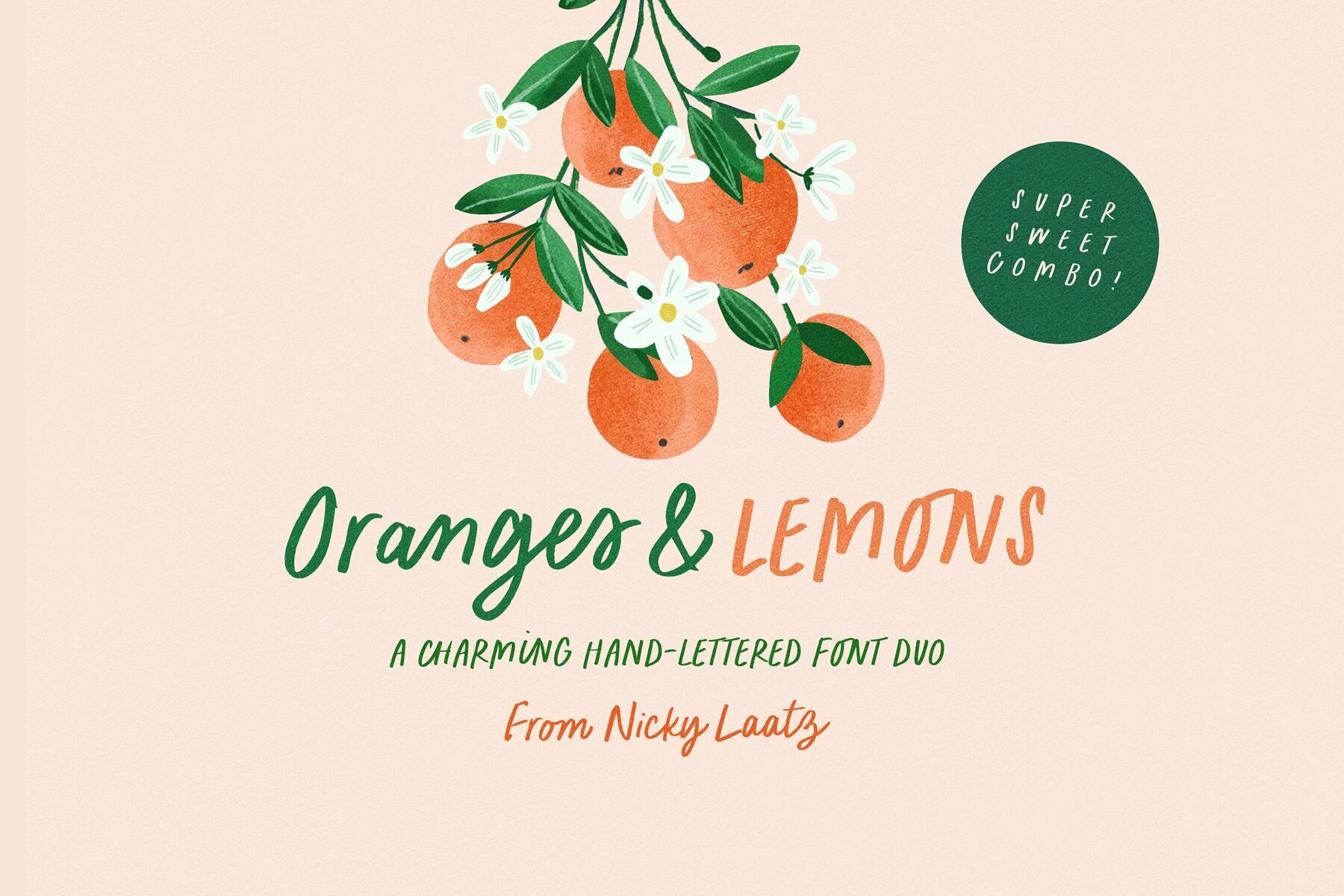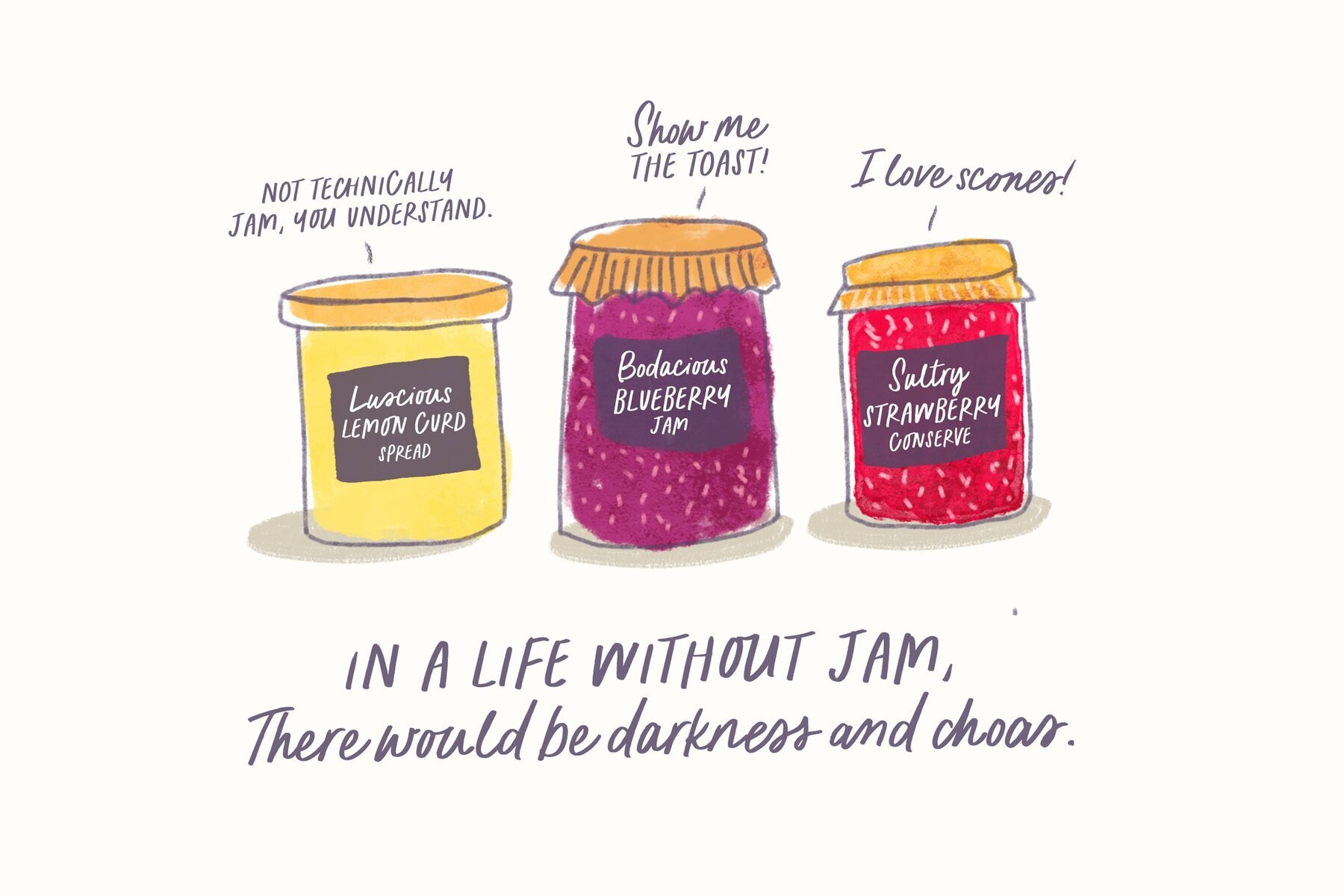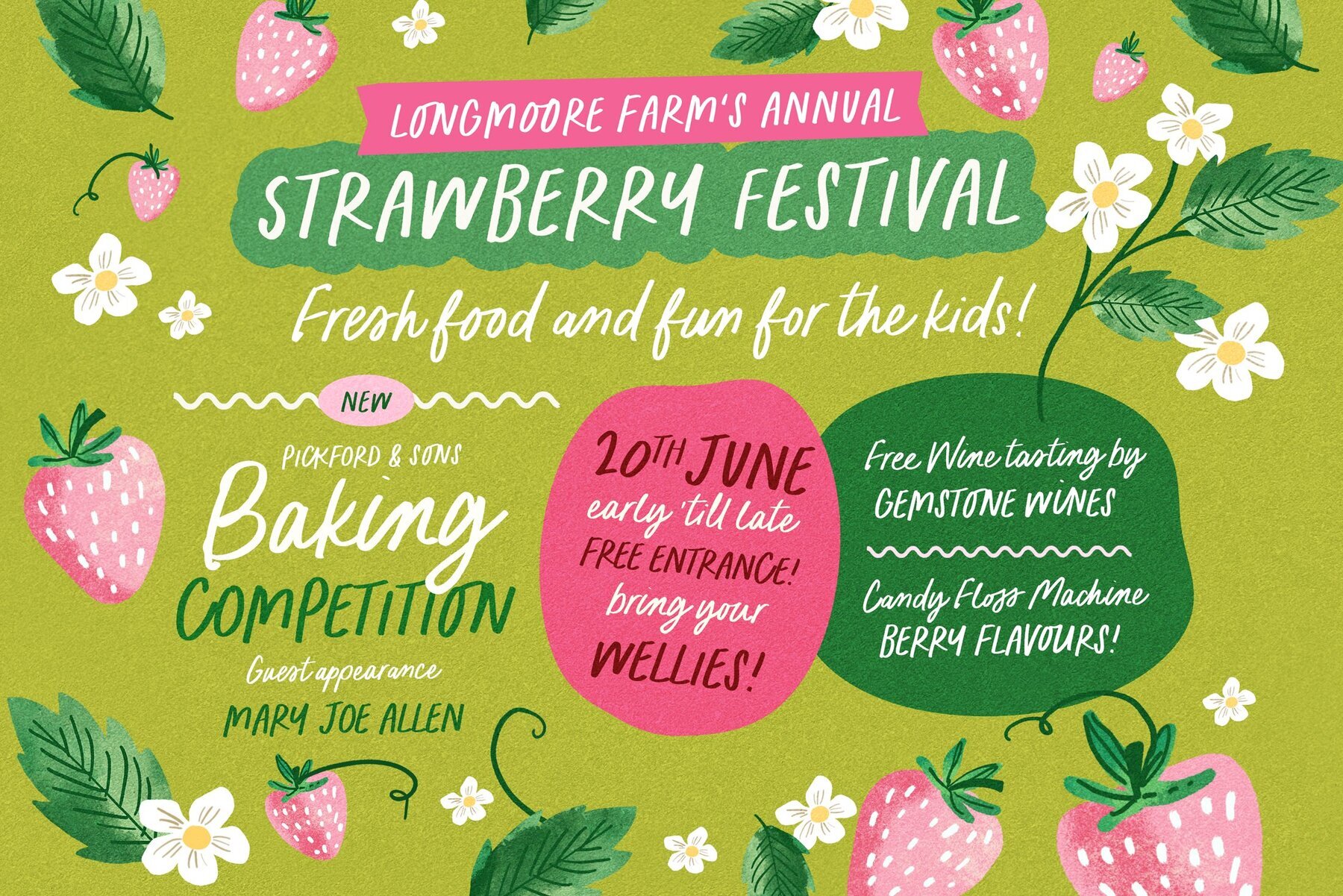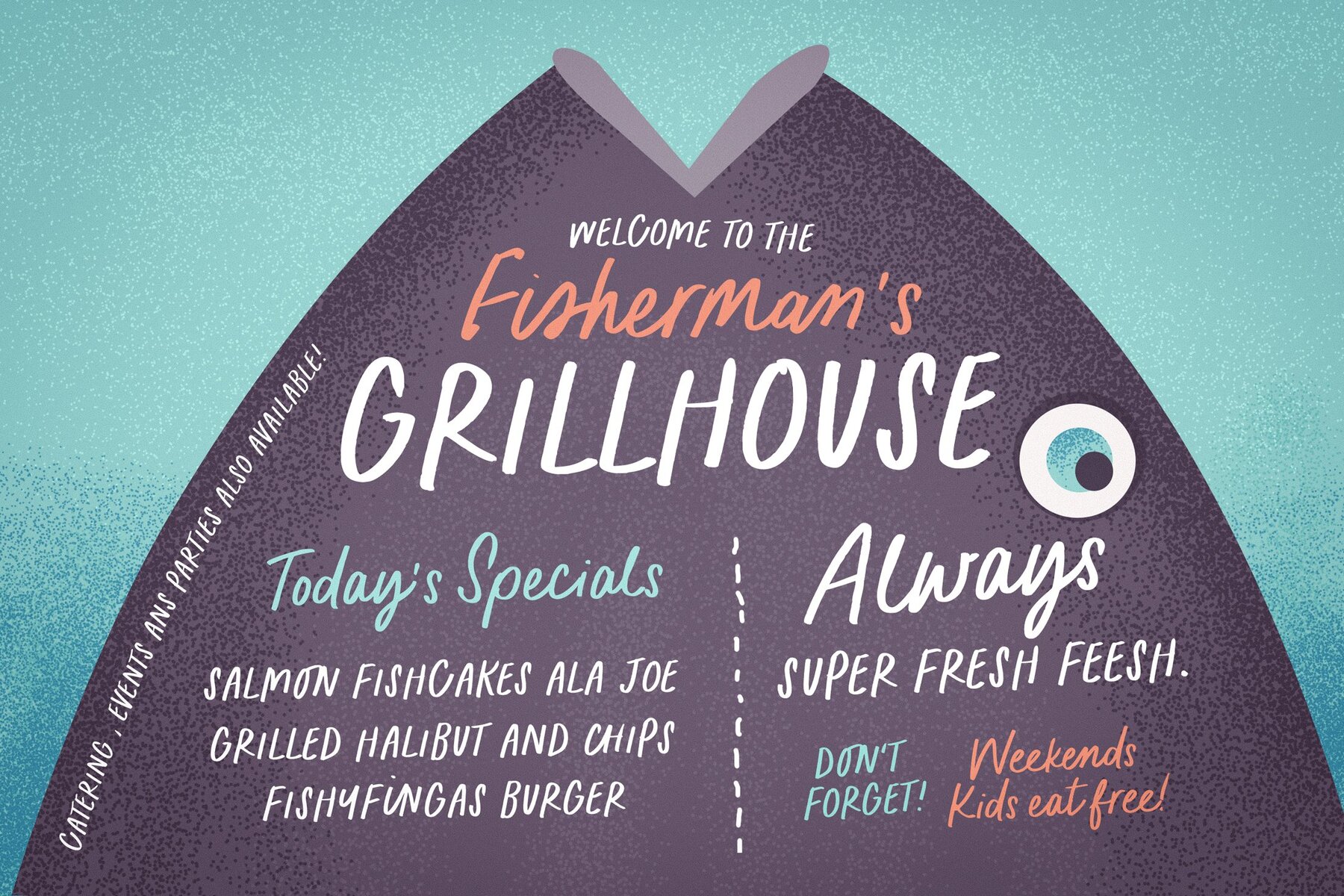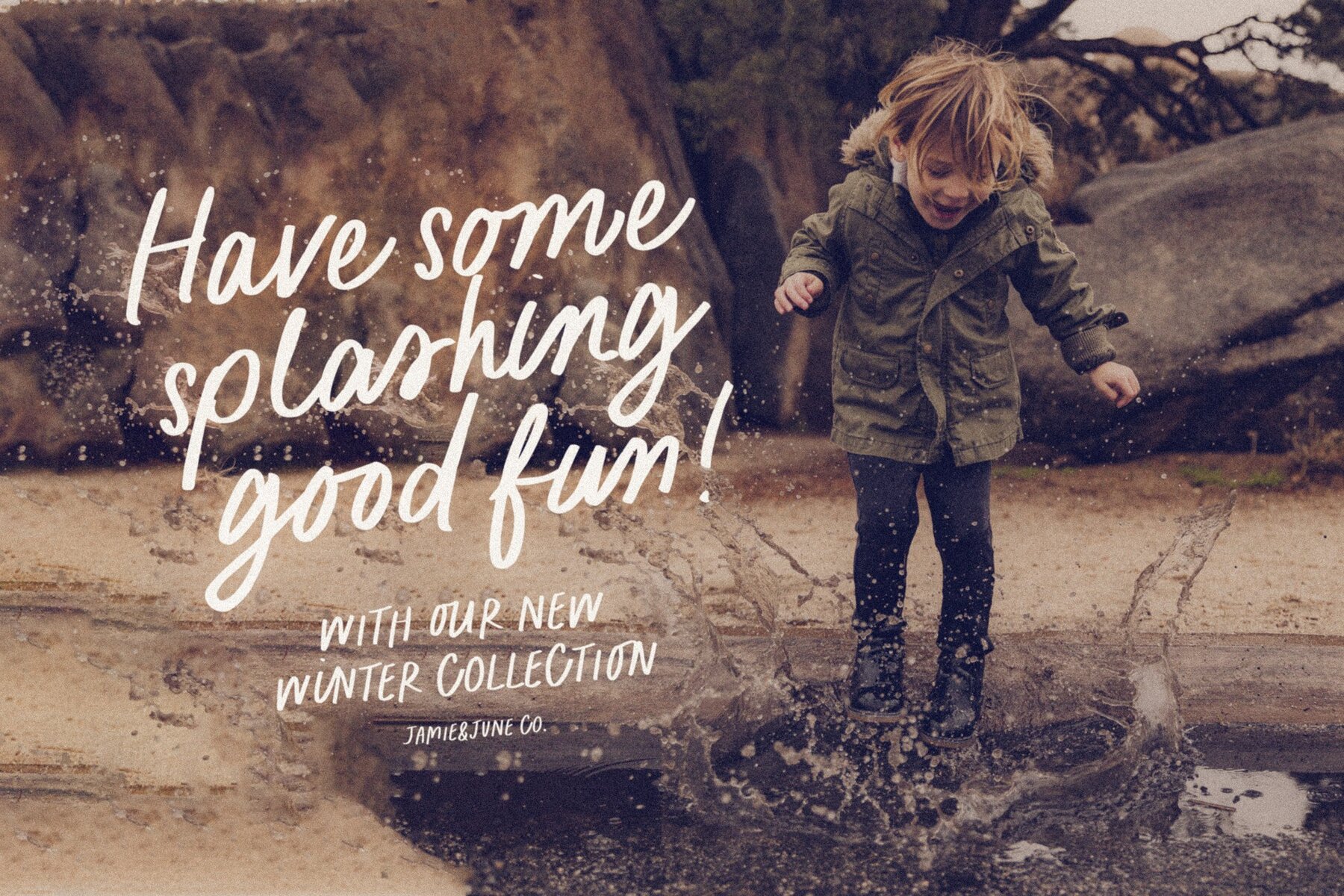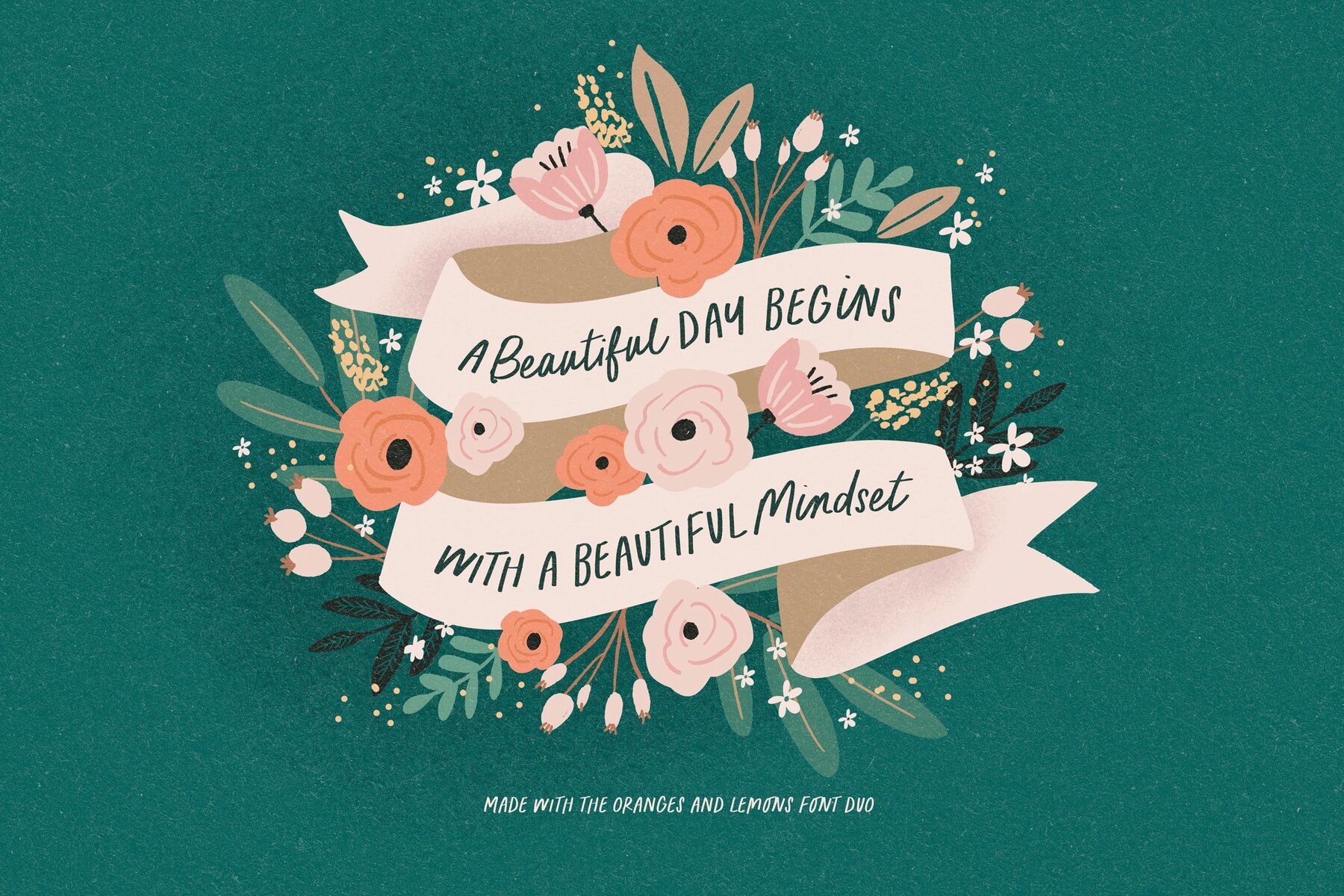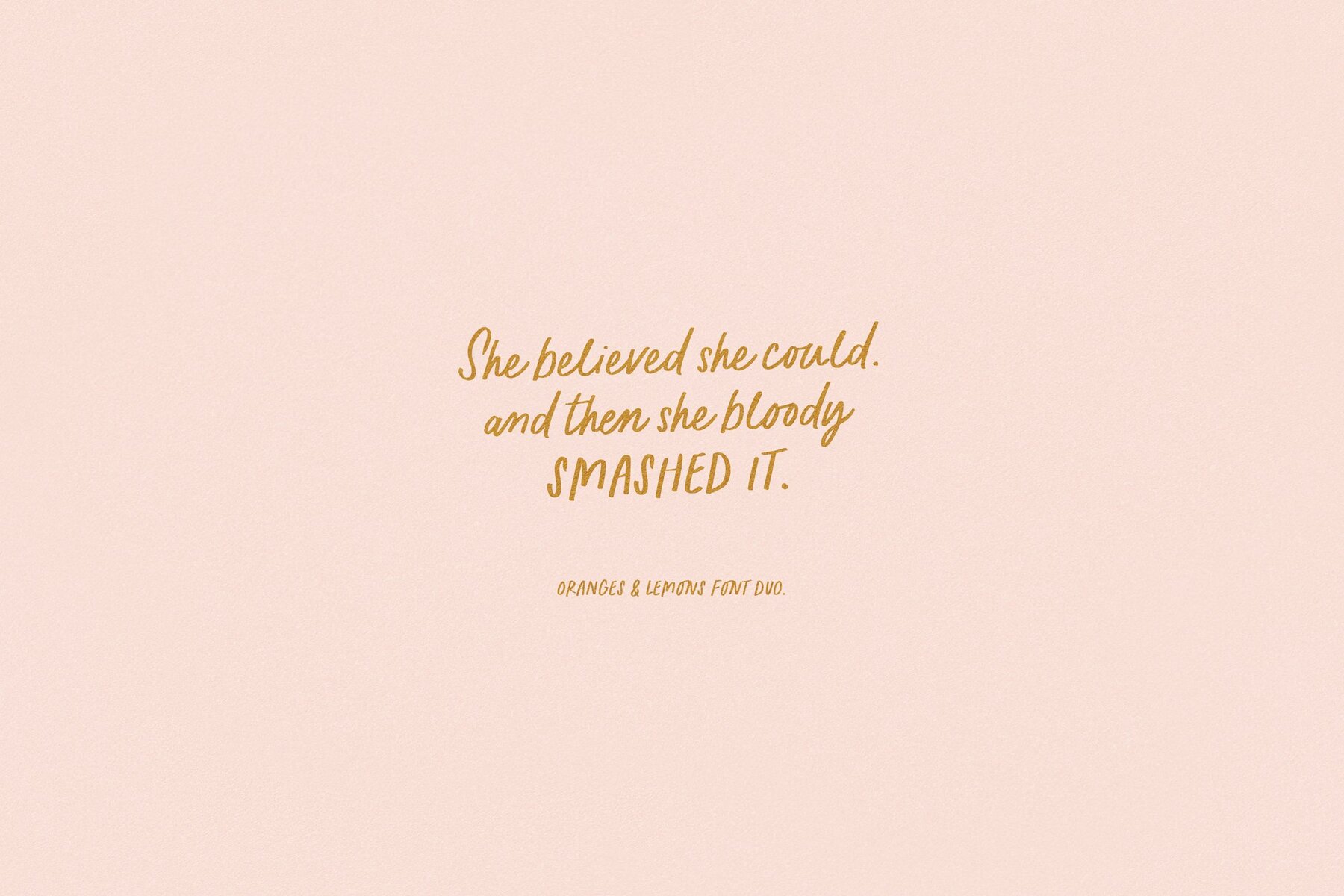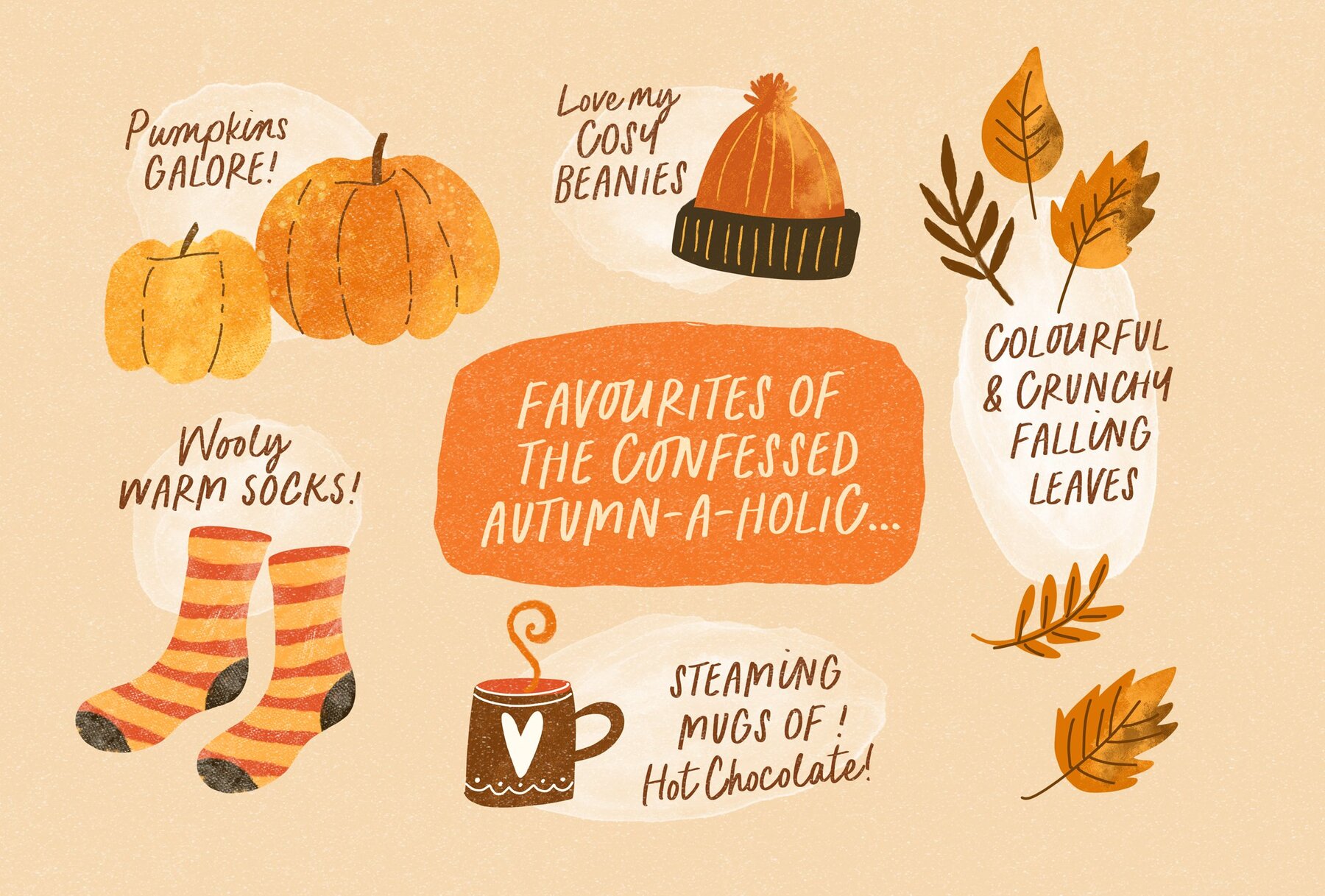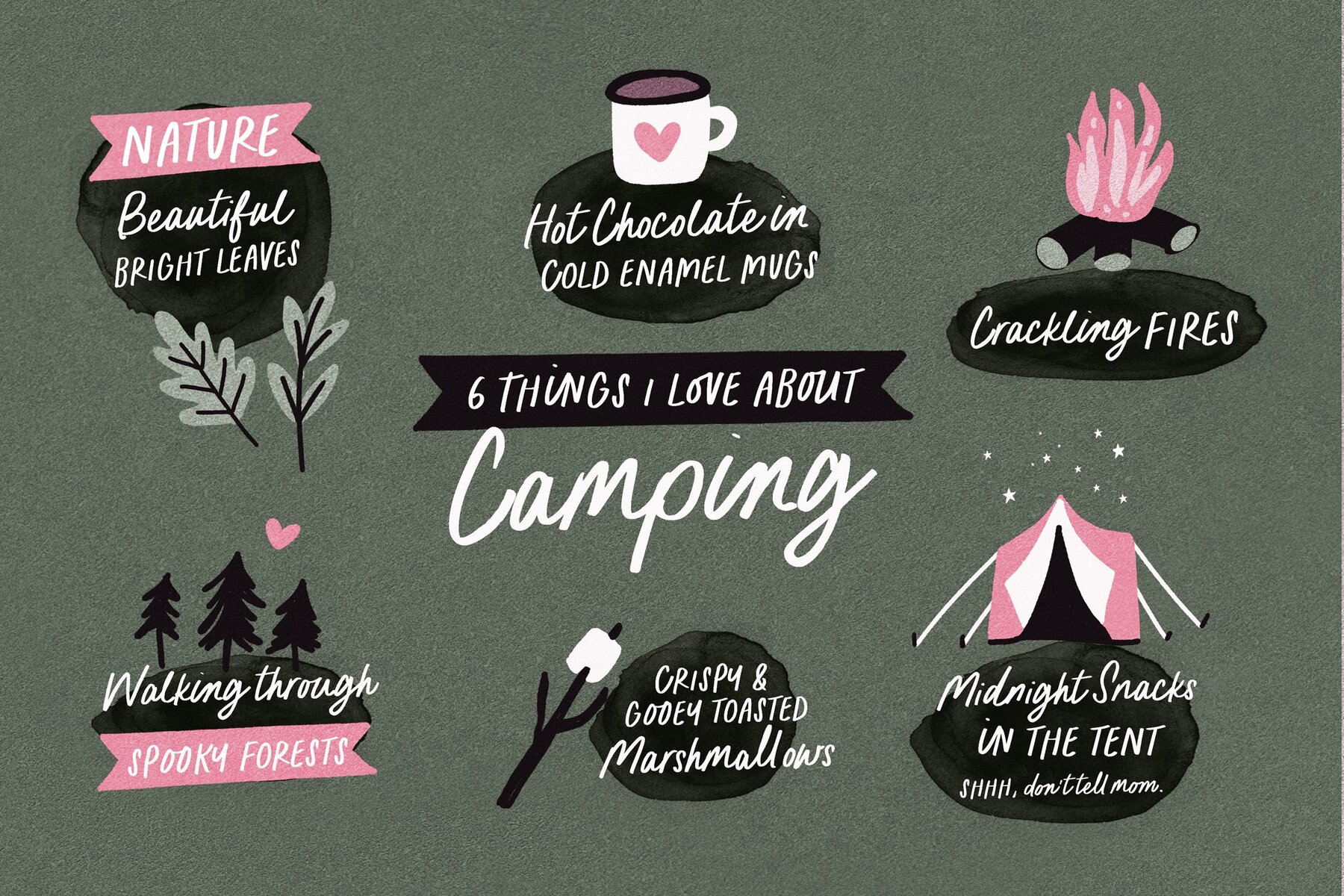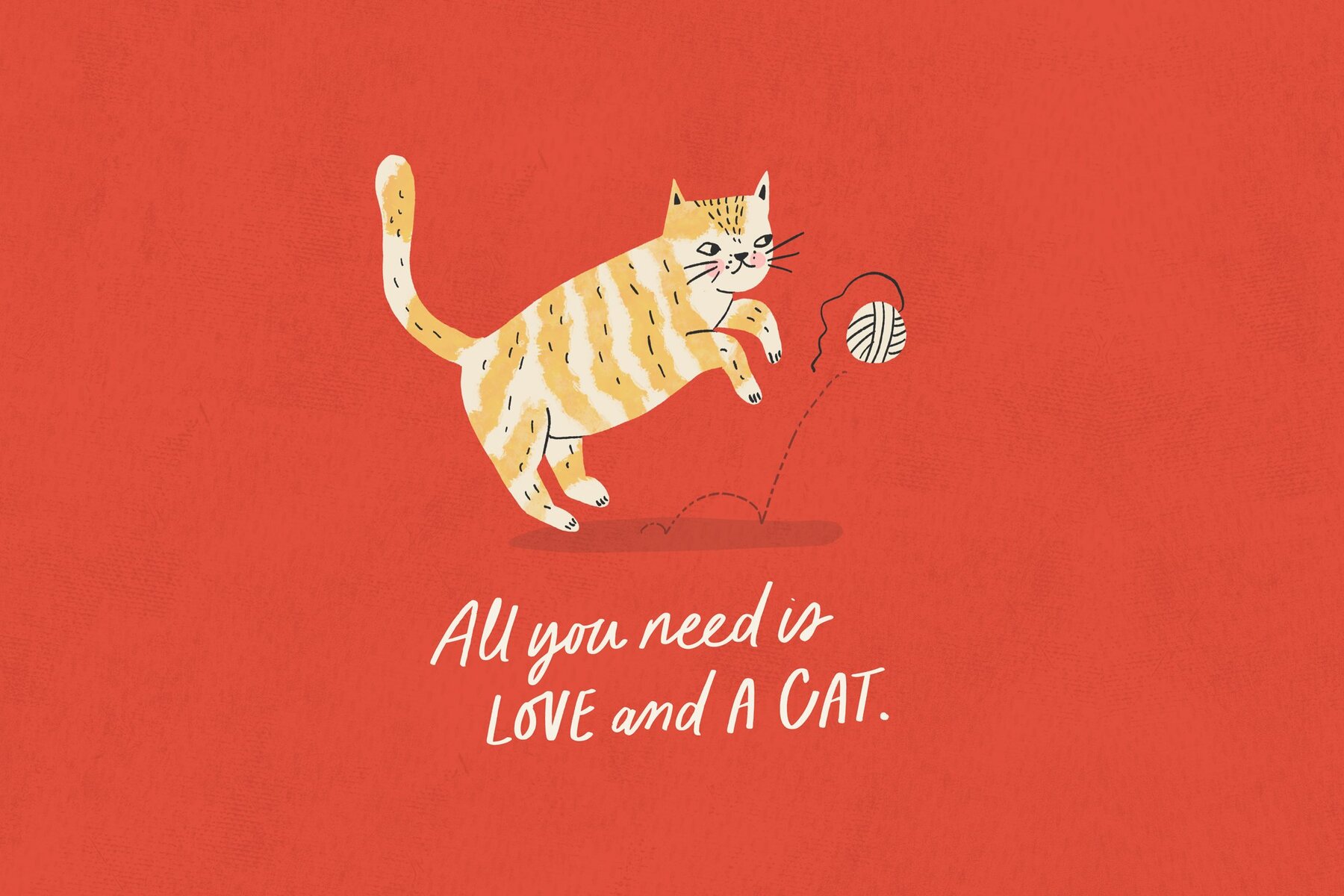
Oranges and Lemons Font Duo
Allow us to introduce "Oranges and Lemons," the delightful duo that combines sweet charm with effortless hand-lettering. This pairing is a feast for the eyes, perfect for sprucing up greeting cards, quotations, charming branding initiatives, and more. Let it whisper whimsy into your illustrations, or lend a touch of enchantment to children's books and packaging designs. The duo is composed of two harmonious halves. One is a casual, marker-style font adorned with all-capital letters, while the other is a matching script. Like two peas in a pod, they complement one another beautifully, offering you the flexibility to create diverse and engaging designs. Don't miss out on the hidden gems that lie within the OpenType features of "Oranges and Lemons." Here, you'll discover enchanting ligatures that will inject a playful energy into your creative pursuits. Remember to keep your ligatures activated to fully experience the magic. Currently, "Oranges and Lemons" offers support for a multitude of languages, including Danish, English, French, German, Swiss German, Norwegian Bokmål, Norwegian Nynorsk, Portuguese, Spanish, Swedish, and Swiss German.